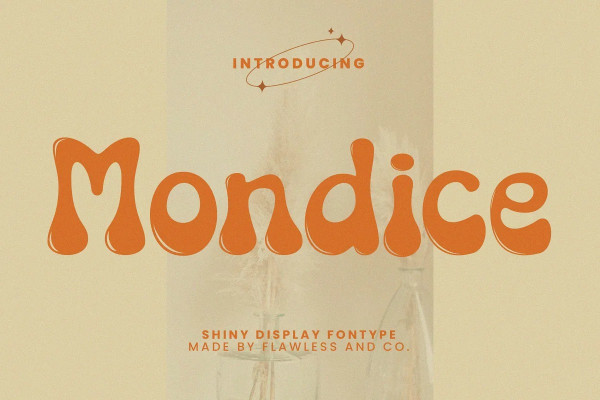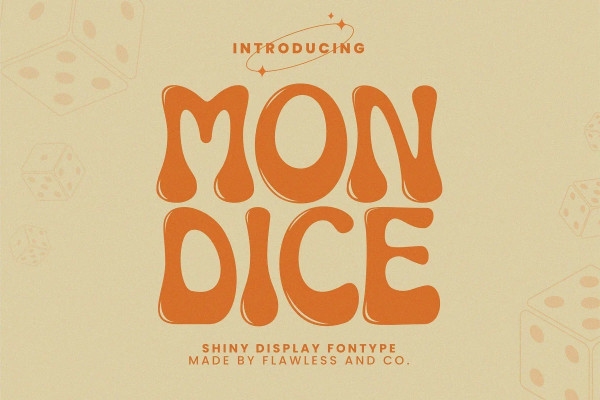
MONDICE FONT
Mondice Font – Retro Font, our new “Wild Kinder” Modern Retro with Fun and Elegant Style is perfect for branding, logos, invitation, master heads, and more.